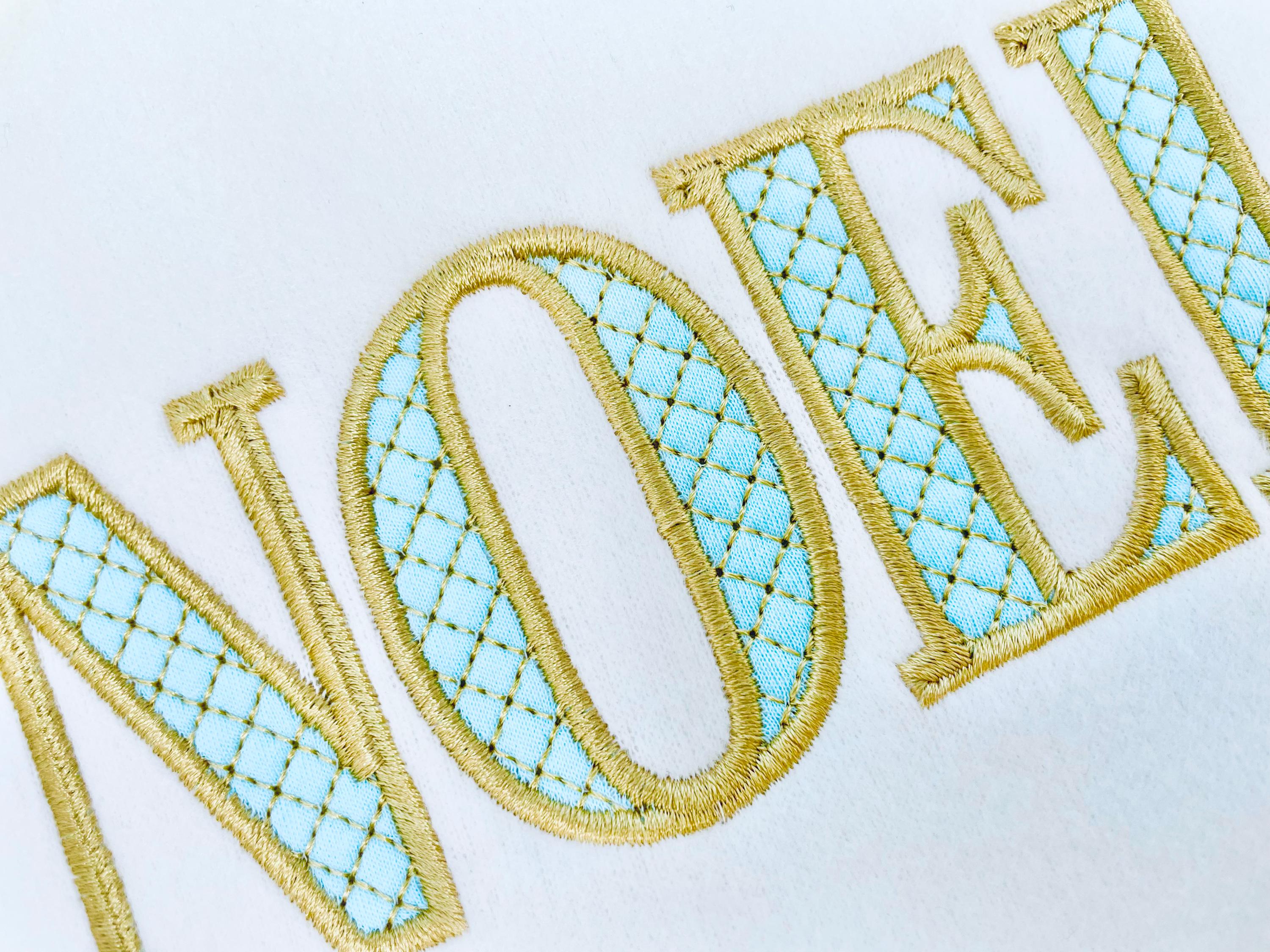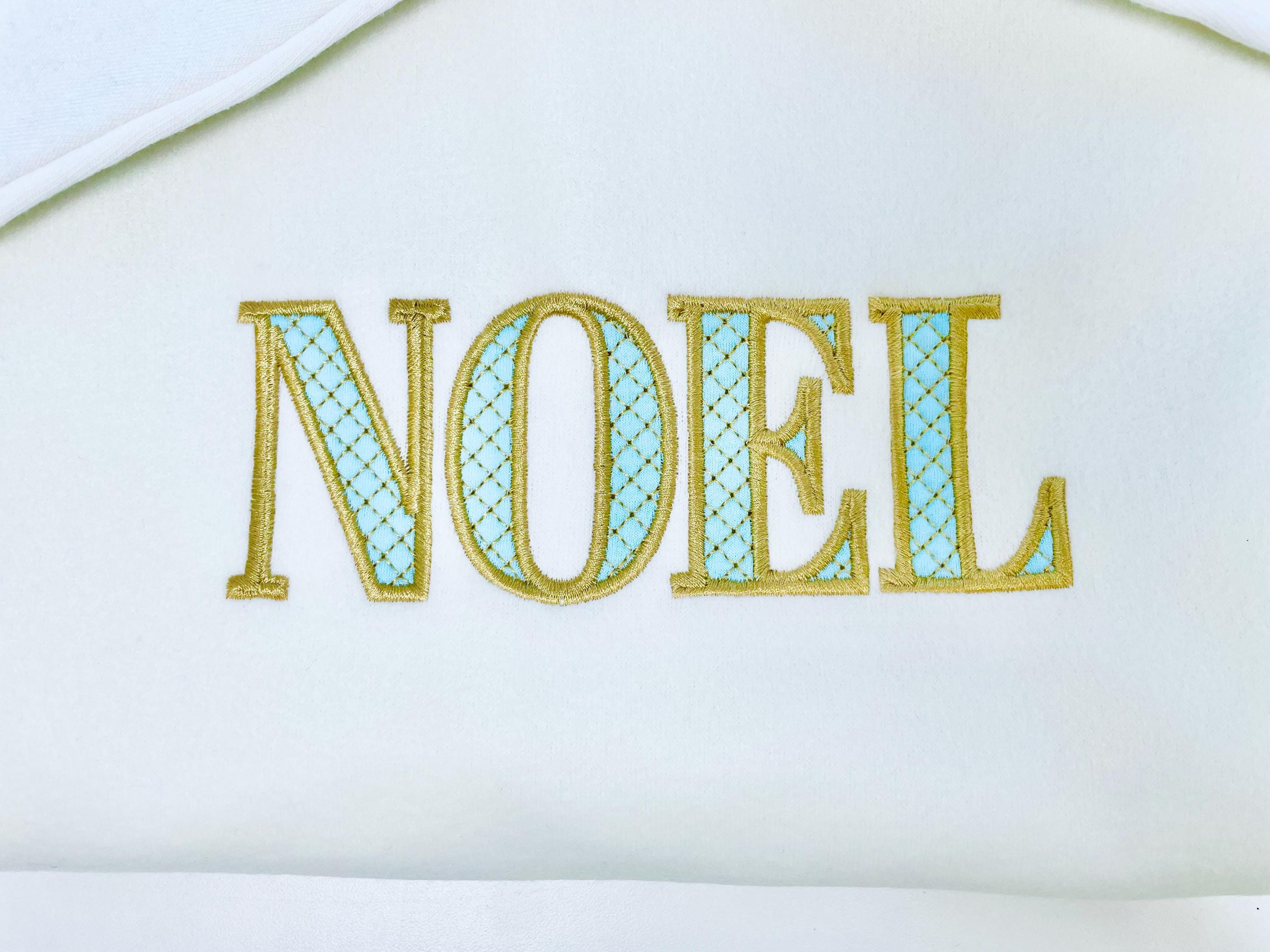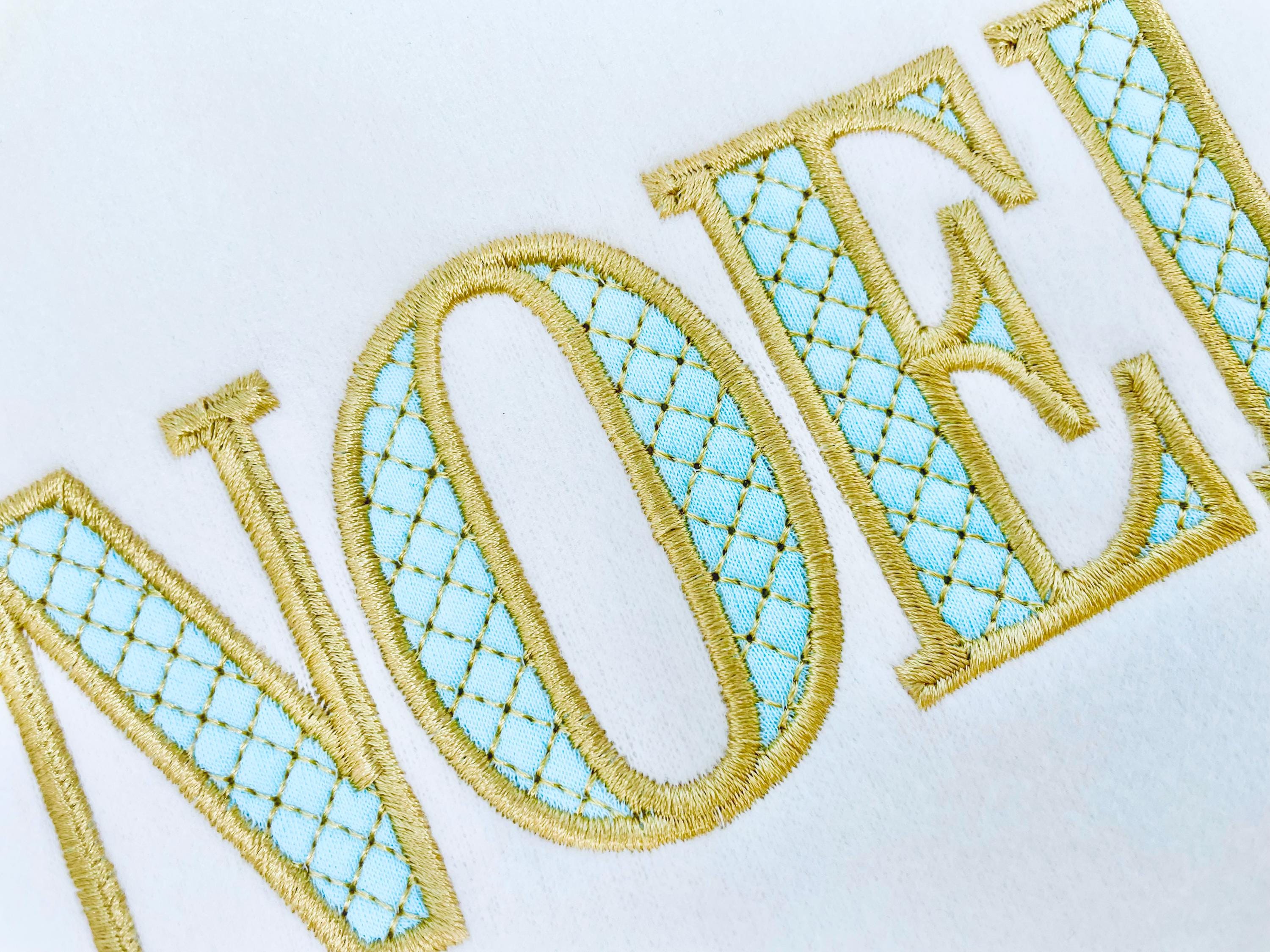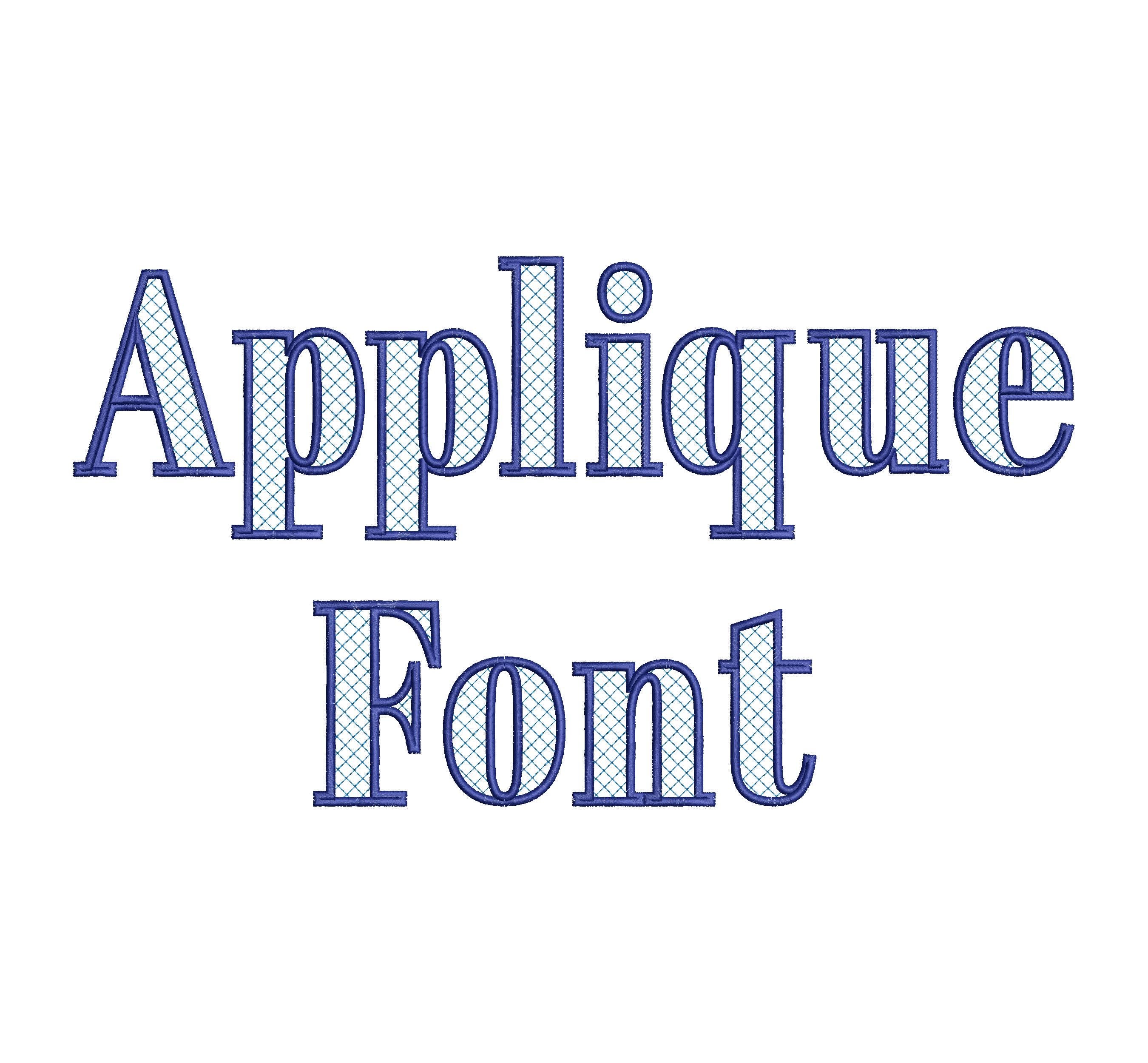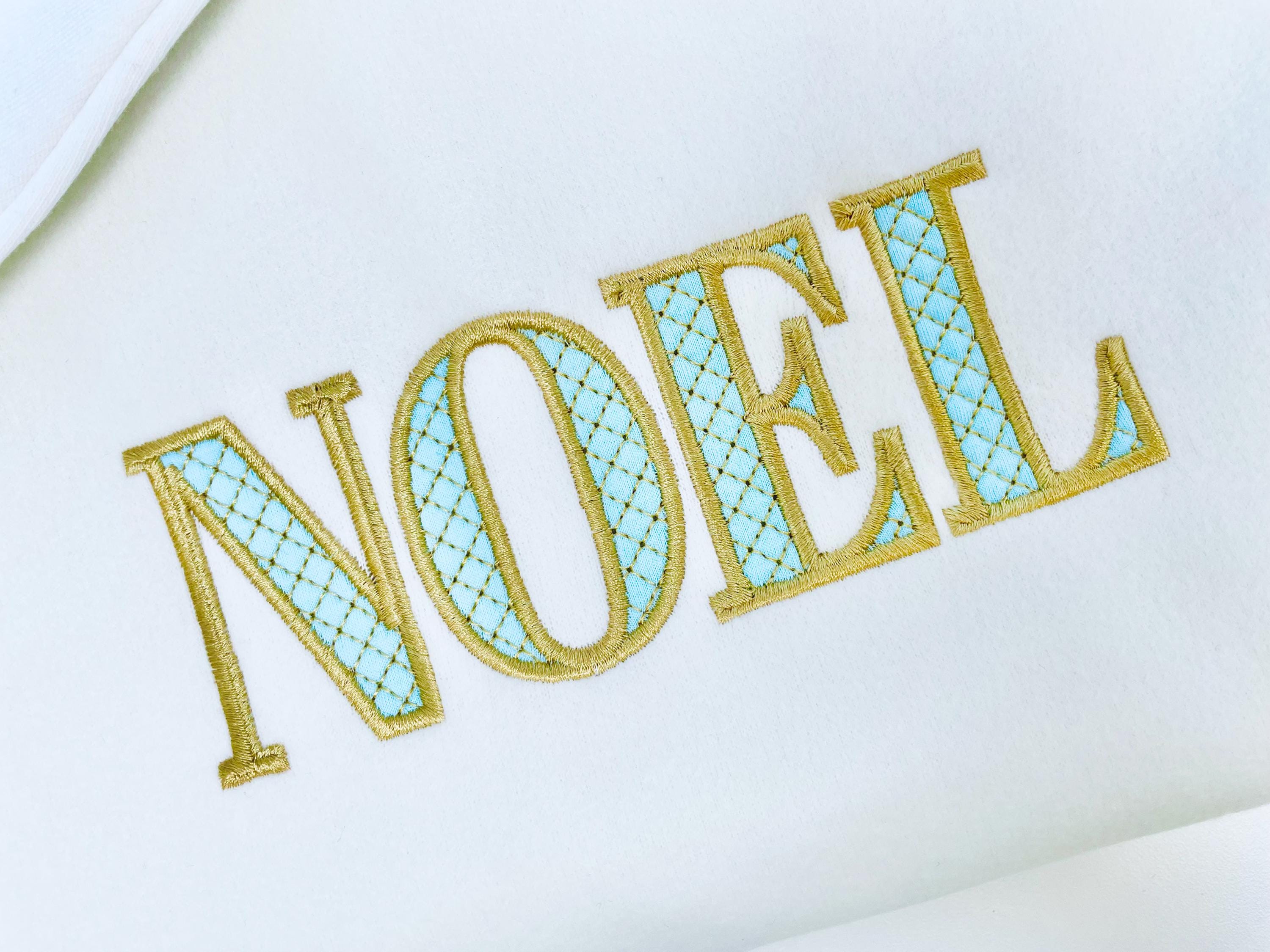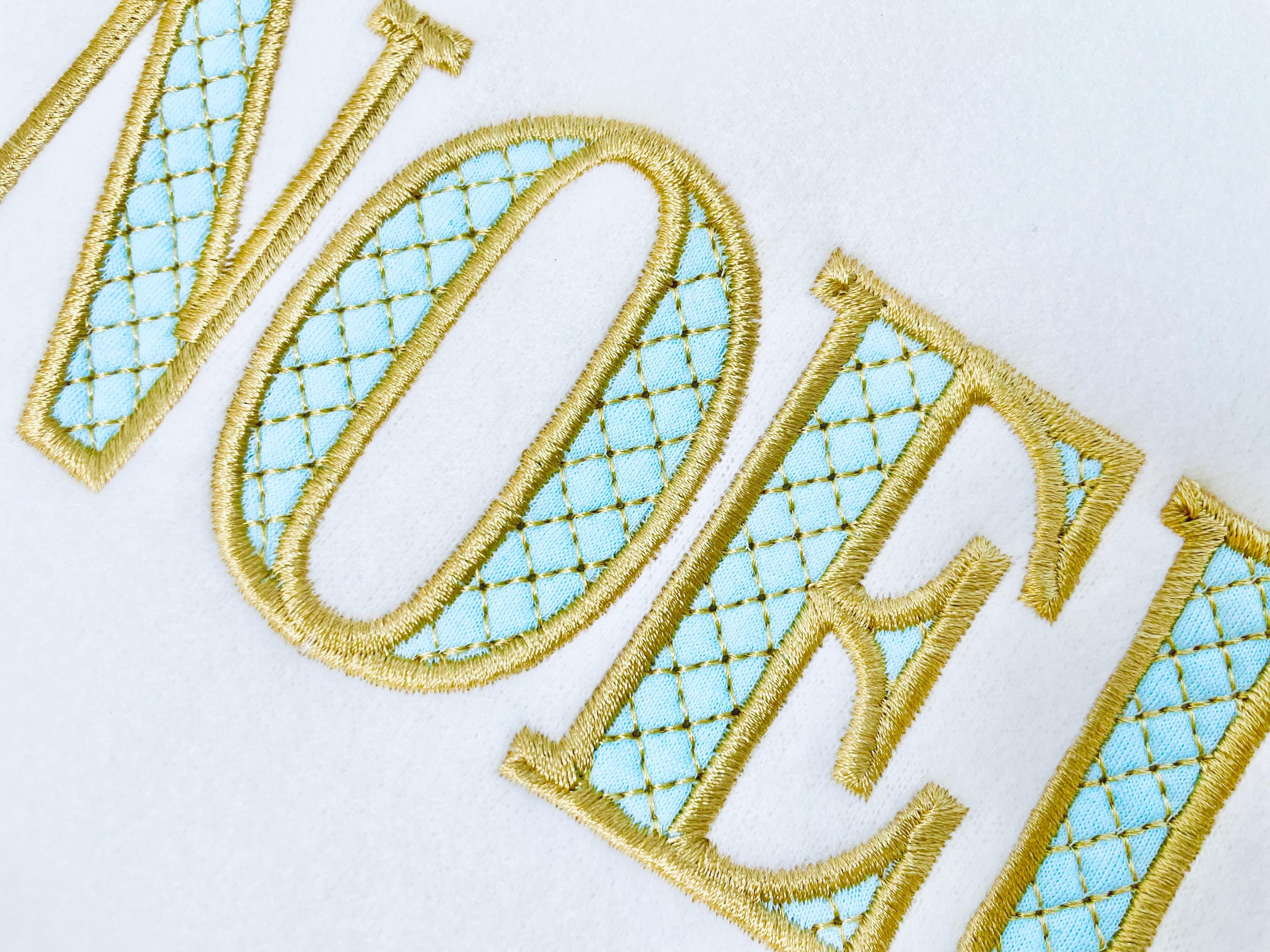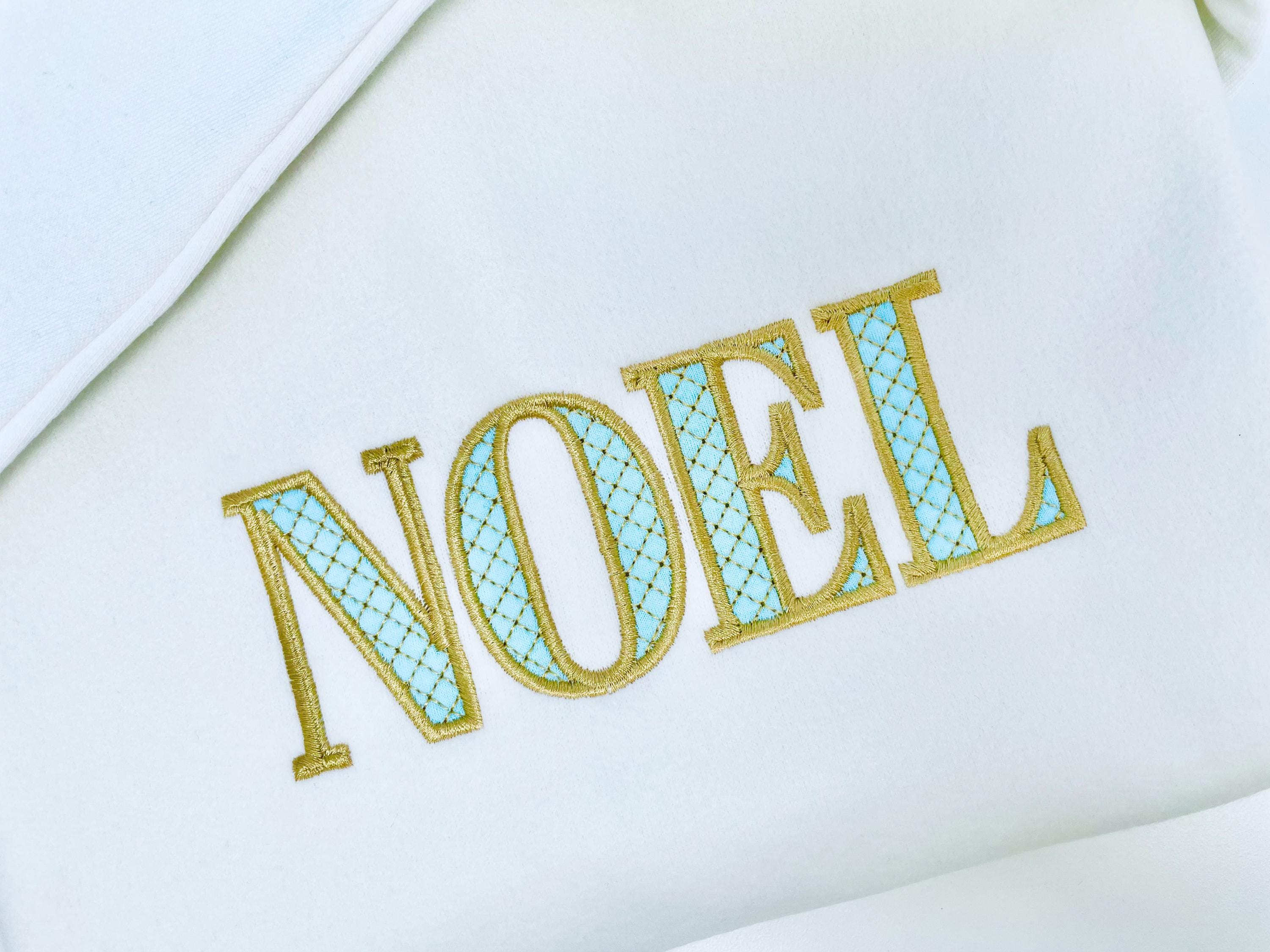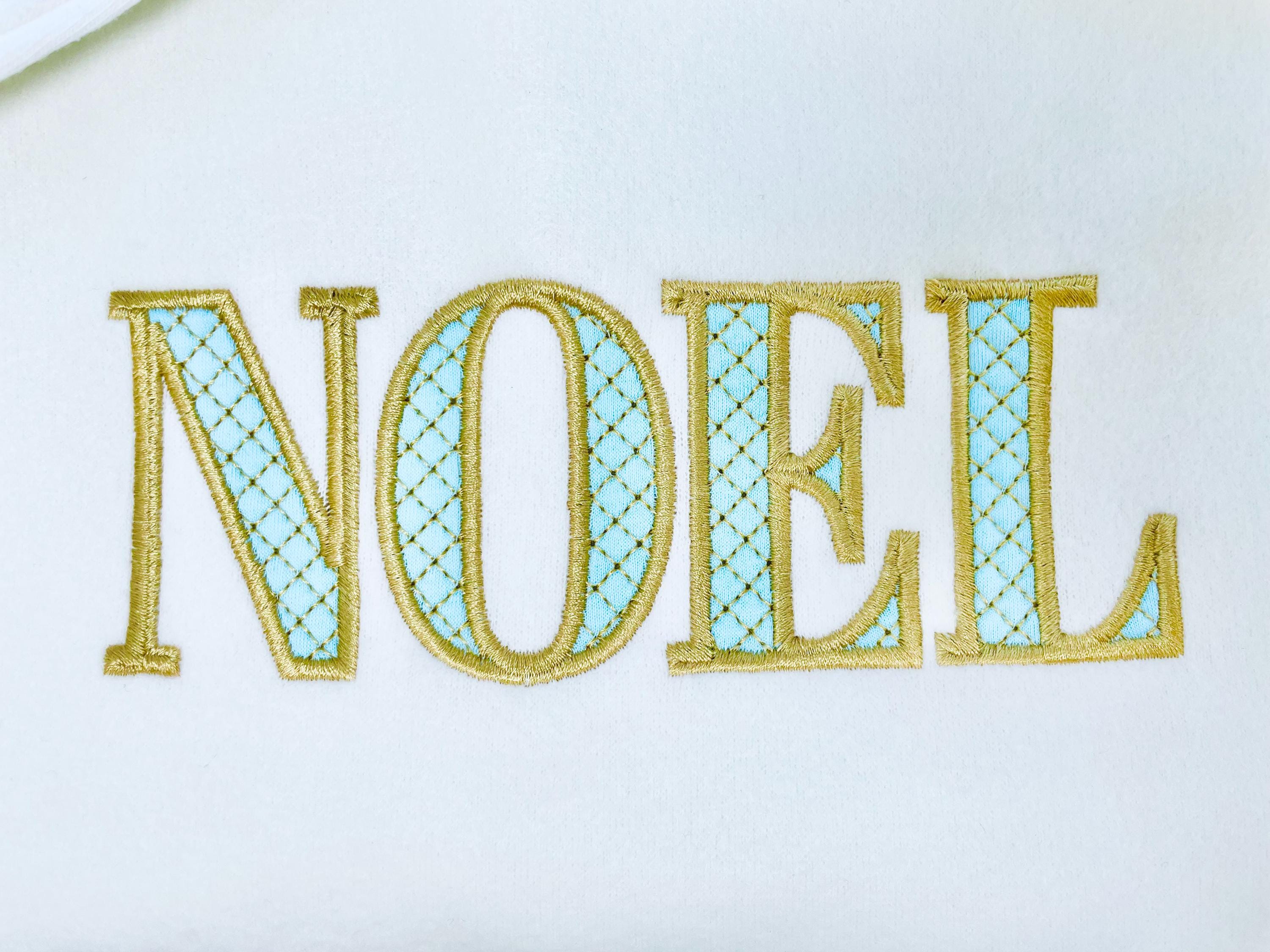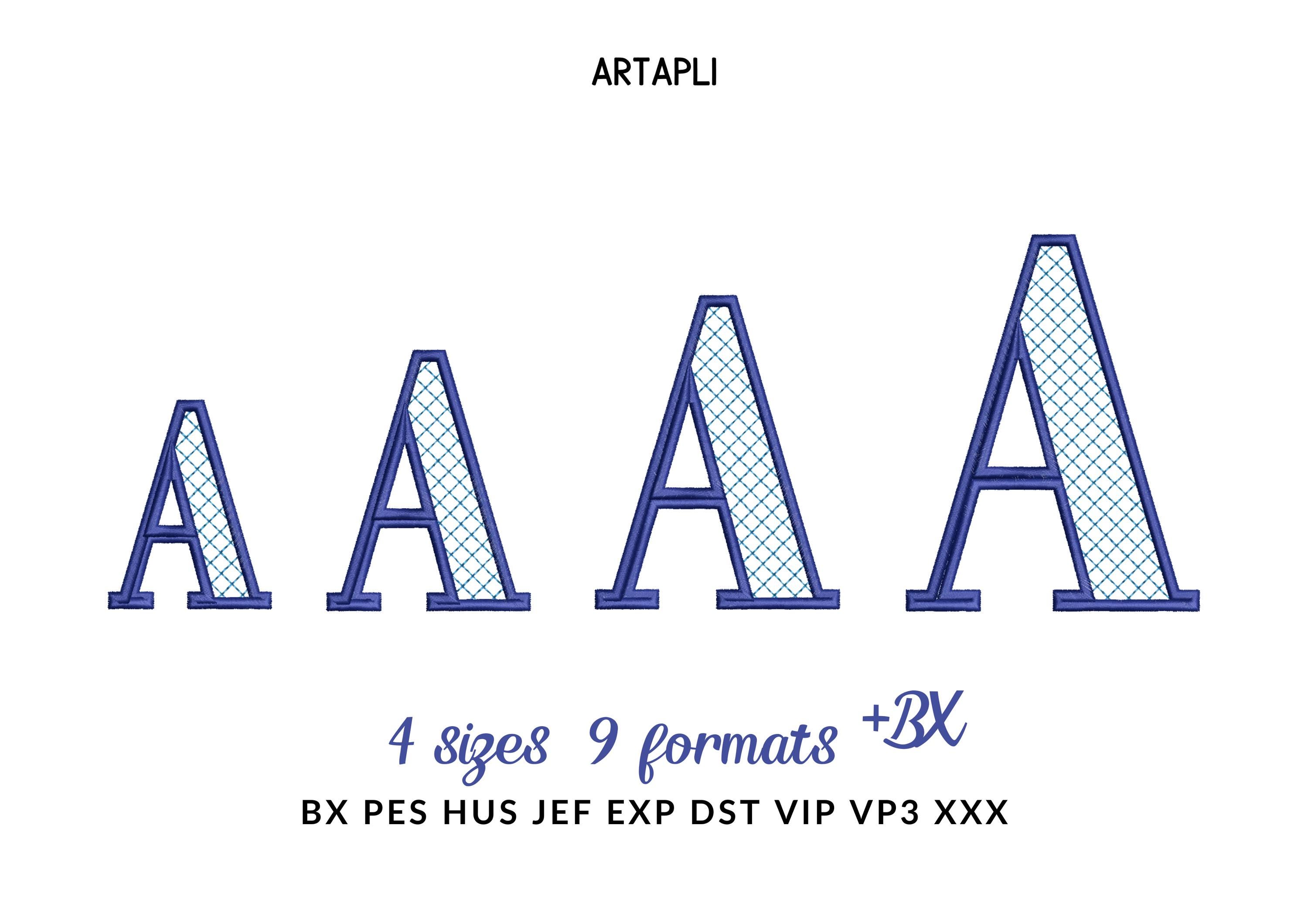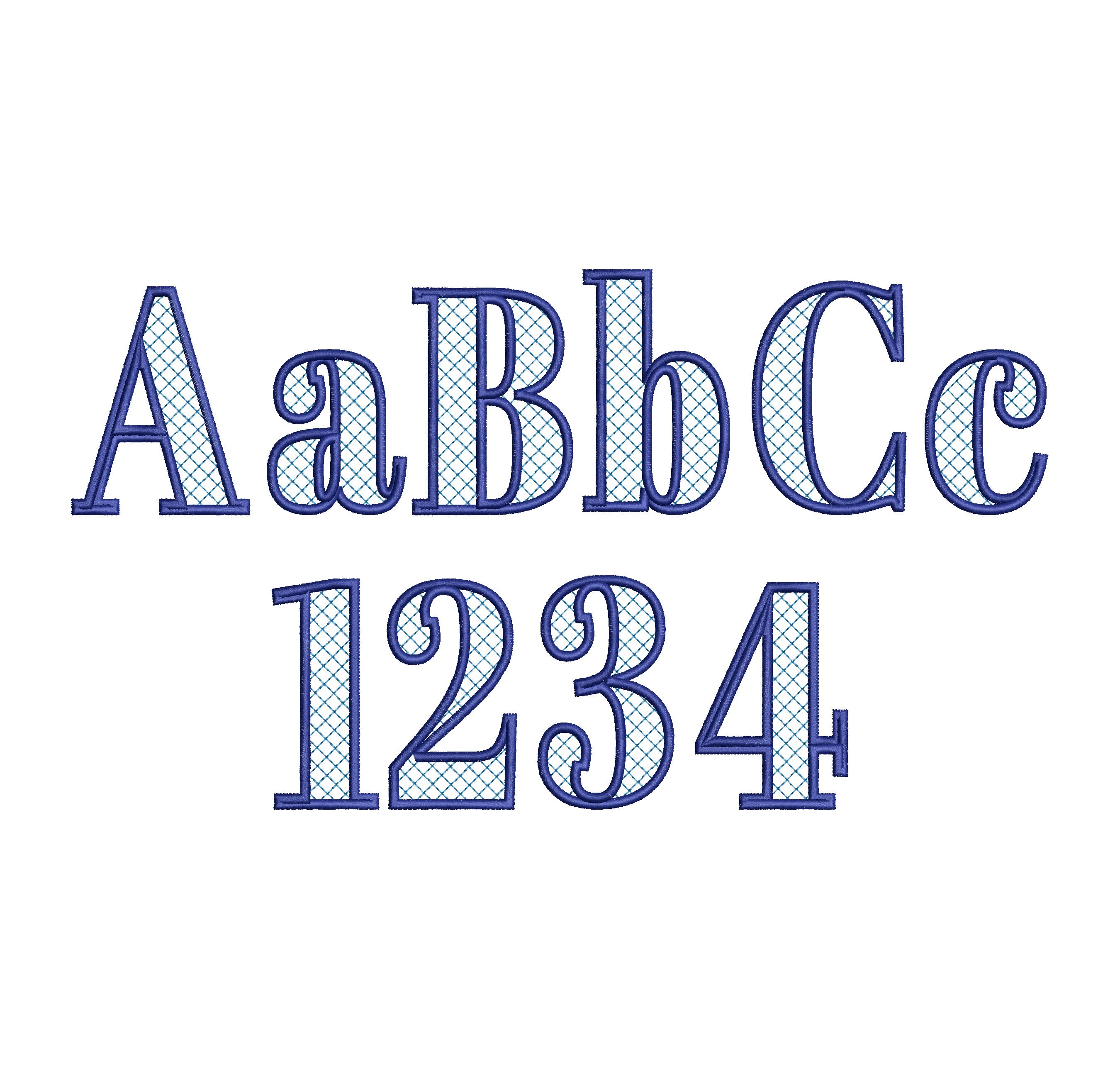
Elegant Font Noel check and outline Block Font Applique Alphabet Monogram machine embroidery designs big sizes 2.9 up to 5.2 inch, BX
Applique design
The checks are part of the embroidery.
The background fabric looks through. Stunning effect.
Whole alphabet - uppercase and lowercase letters Aa-Zz, numbers 0-9, and punctuation.